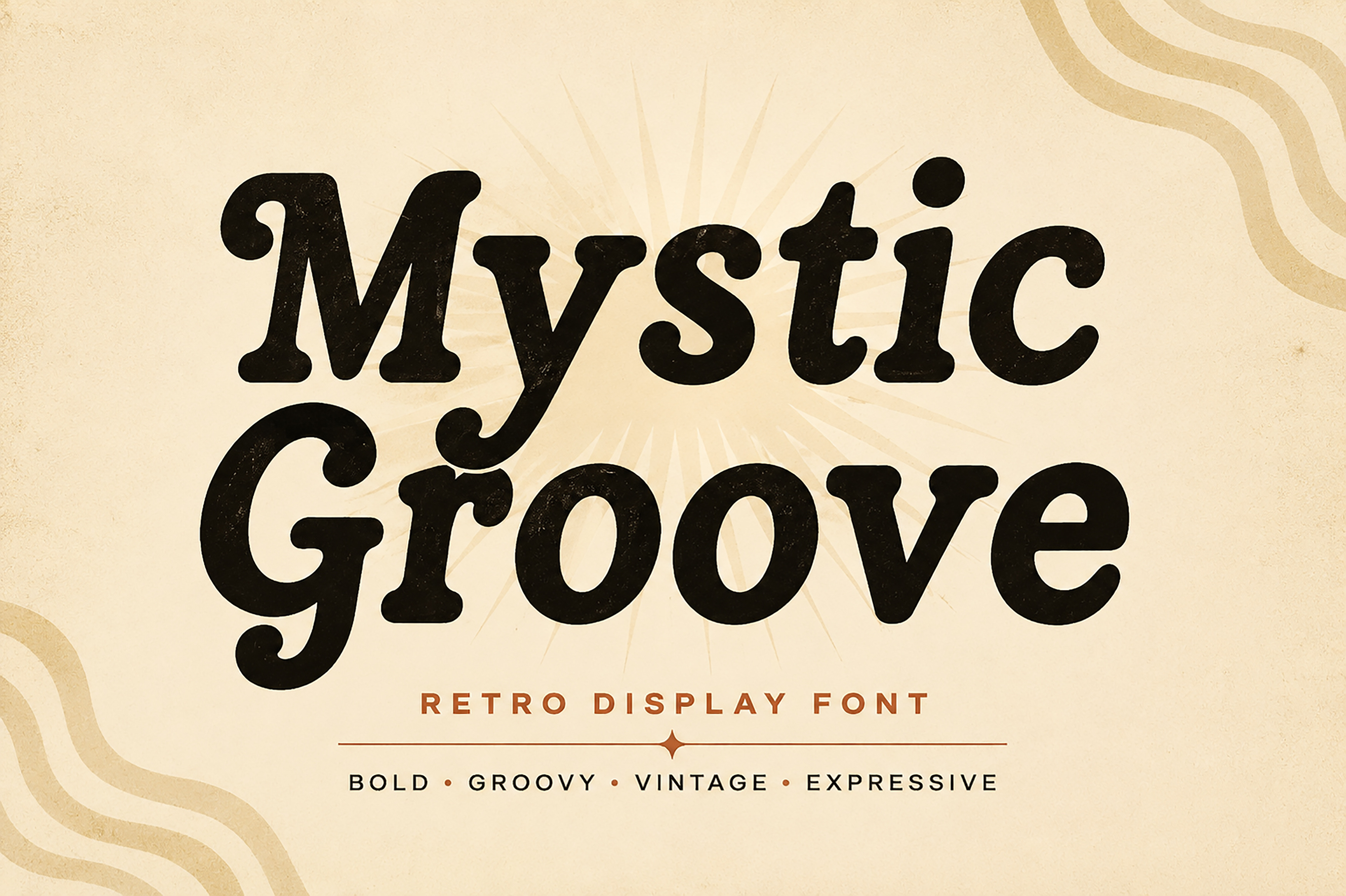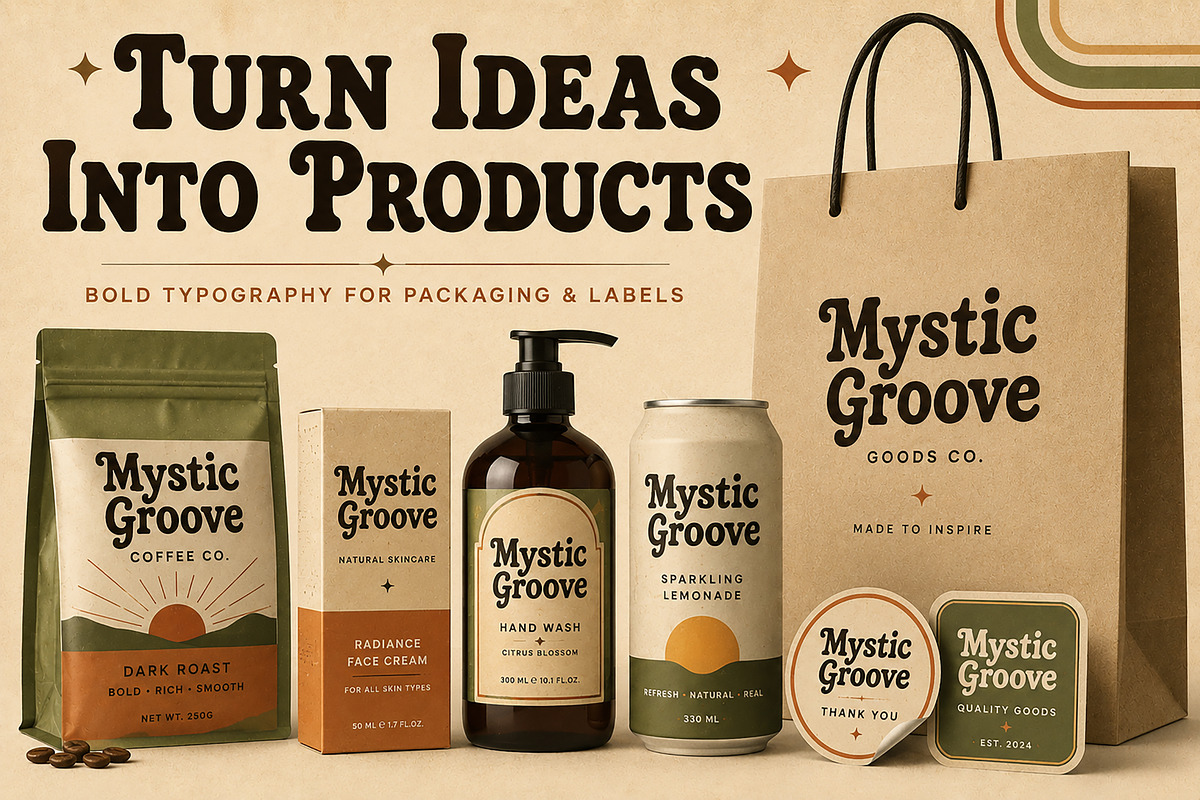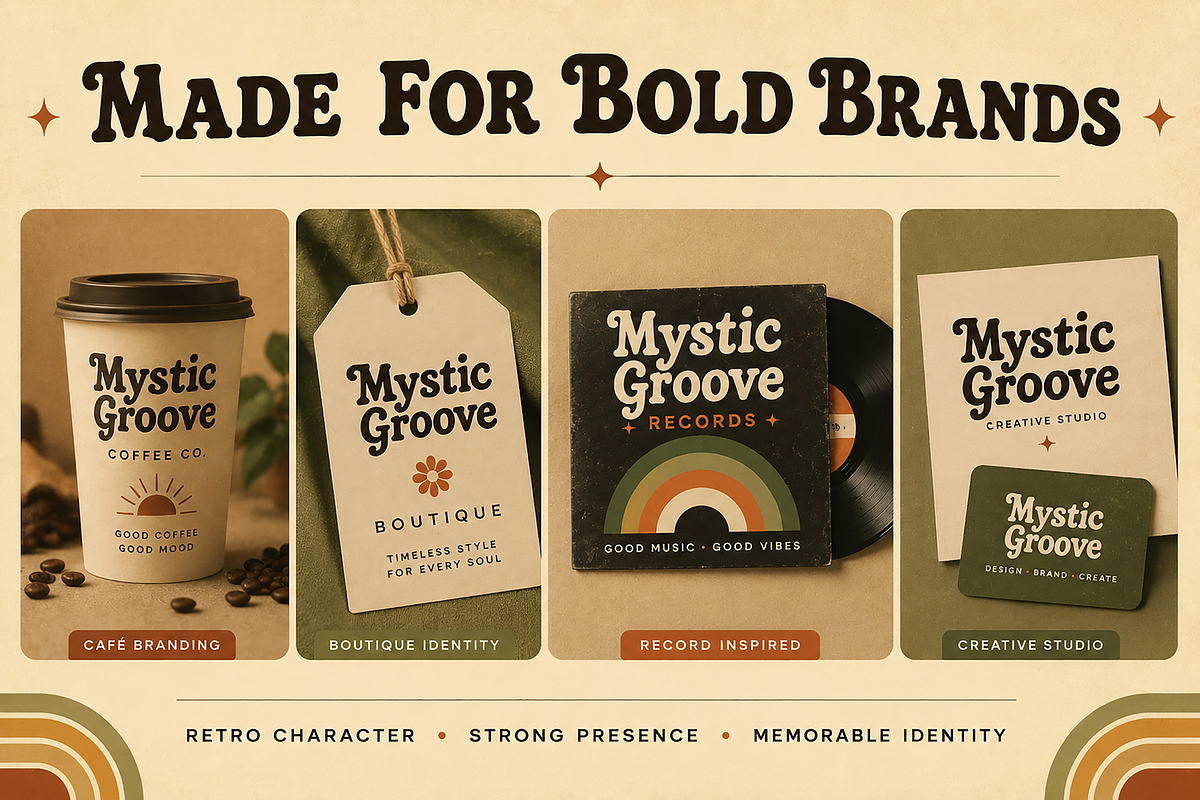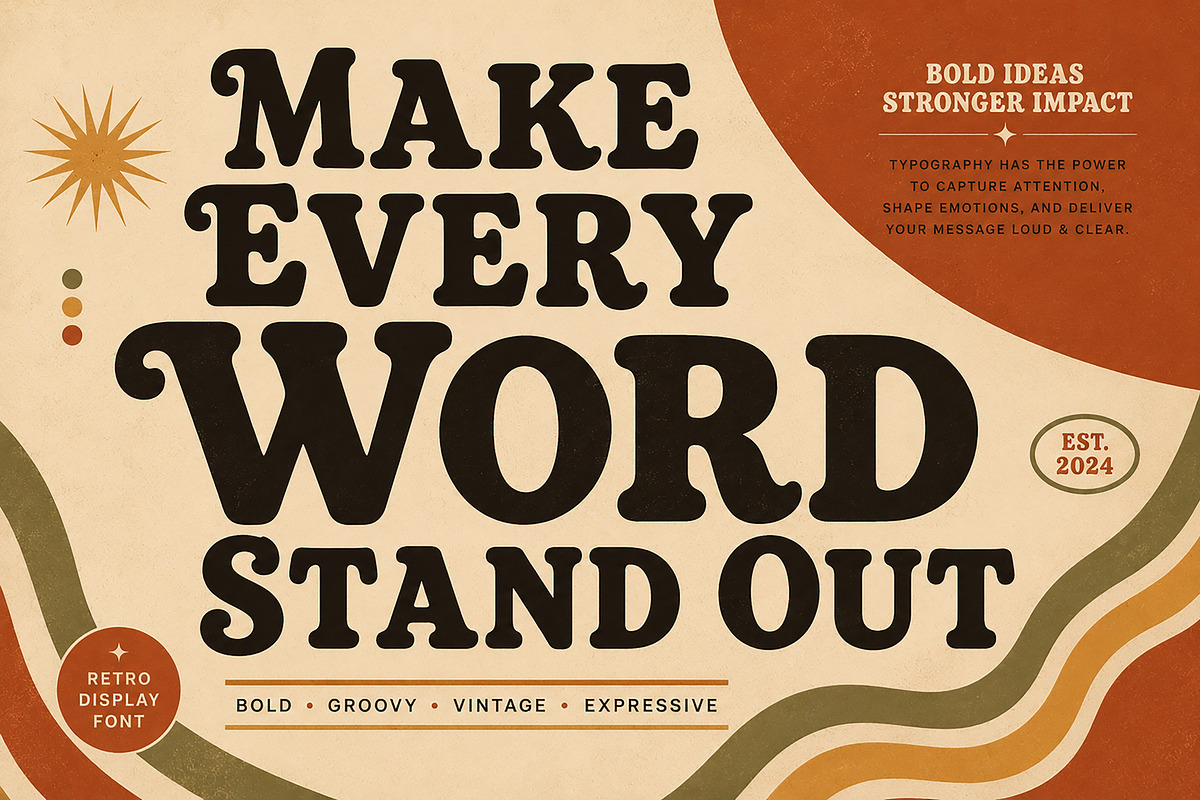
Mystic Groove – Retro Display Font
Mystic Groove – Bold Retro Display Font
Mystic Groove is a bold retro display font inspired by the expressive typography and groovy visual style of the 1970s. Its chunky letterforms, rounded serifs, playful curves, and strong presence make it perfect for designs that need a memorable vintage personality.
Designed to stand out, Mystic Groove works beautifully for branding, logos, posters, packaging, labels, apparel, album artwork, café designs, boutique branding, editorial layouts, invitations, social media graphics, and other creative projects.
Whether you're creating a nostalgic brand identity or a bold headline, Mystic Groove brings a distinctive retro character to every design.
Bold retro display style
Groovy vintage-inspired letterforms
Chunky, expressive typography
Perfect for headlines and branding
Great for print and digital projects
Branding • Logos • Posters • Packaging • Labels • Apparel • Café & Boutique Design • Album Artwork • Editorial Design • Invitations • Social Media • Merchandise